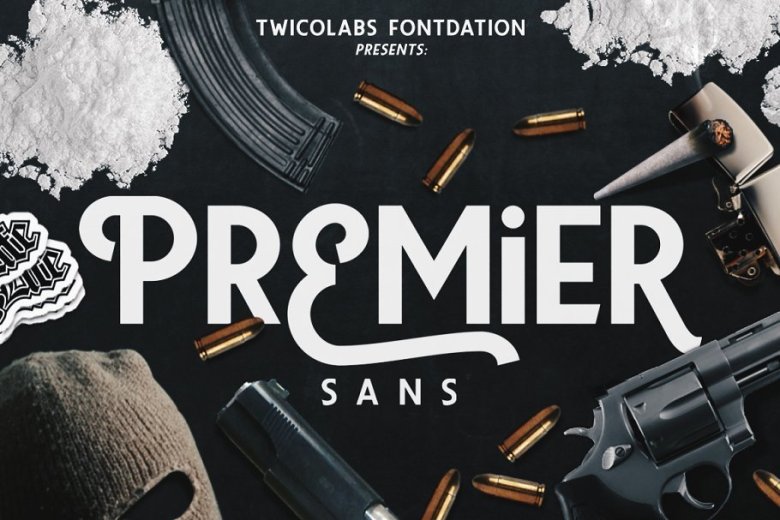
Premier Sans Font
I present to you a simplified version font “Premier Font“. It is designed and shared by Twicolabs Fontdation. PremierSans, a fun yet playful sans serif typeface that is heavily inspired by the letters used in English Premier League. If you’re into modern yet classic typeface, this typeface is a great addition for your arsenal (no pun intended). Premier is suited for many applications like Heading, Posters, Magazines, Packaging, Branding & Identity, Photography, Fashion etc.